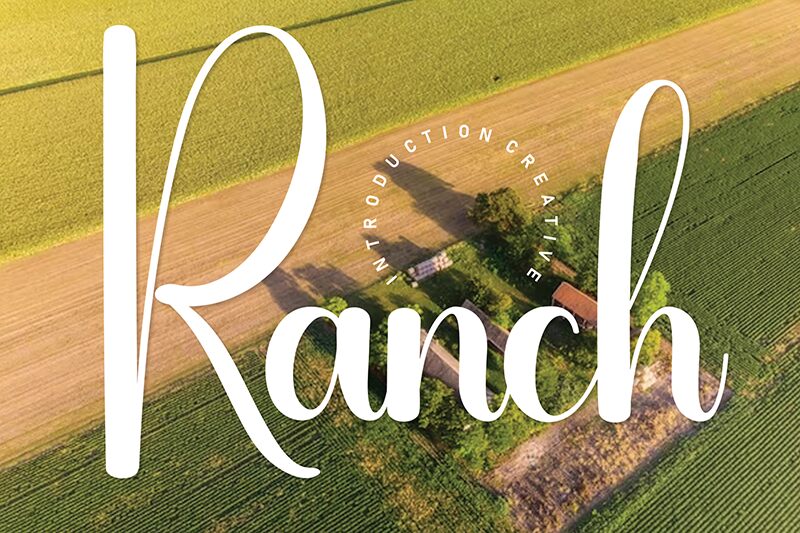
Ranch
Ranch font, designed by Andi Moz, is a graceful handwritten font with a flowing and expressive style. Its vintage-inspired aesthetic combines elegance and artistic charm, making it perfect for those looking to add a romantic touch to their designs.
This free handwritten font is an excellent choice for wedding invitations, love letters, greeting cards, branding projects, book covers, quotes, social media posts, websites, packaging design, certificates of appreciation or any other creative project.